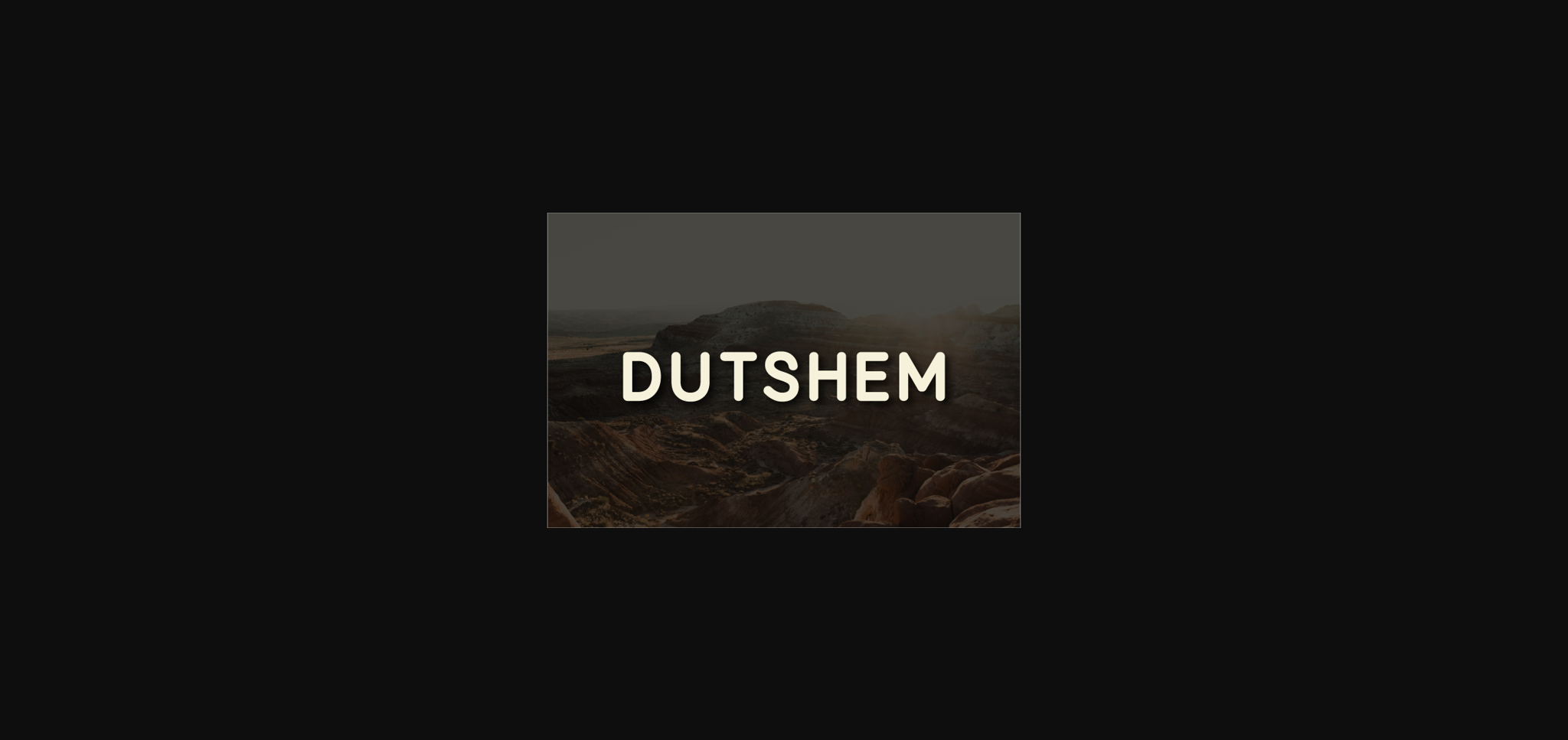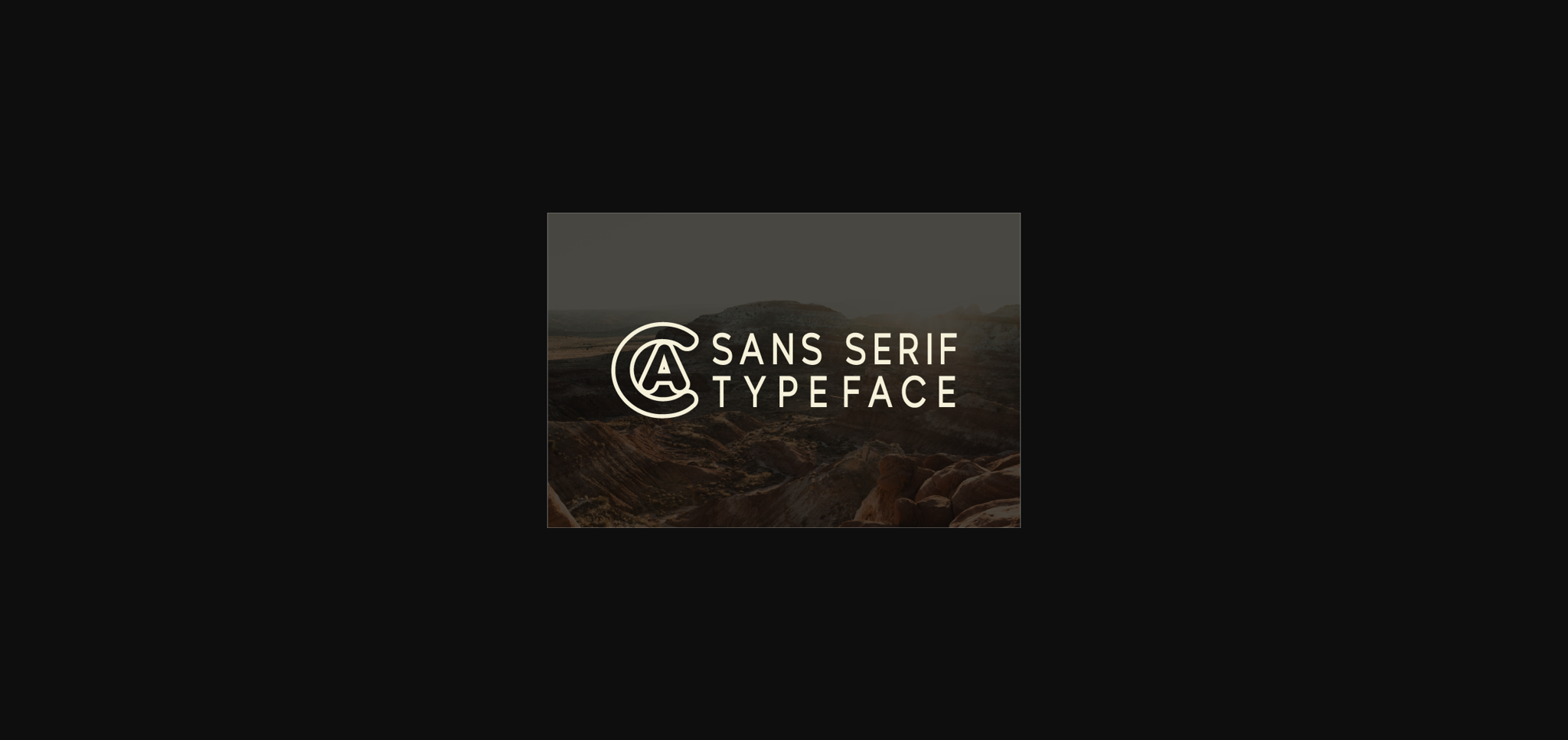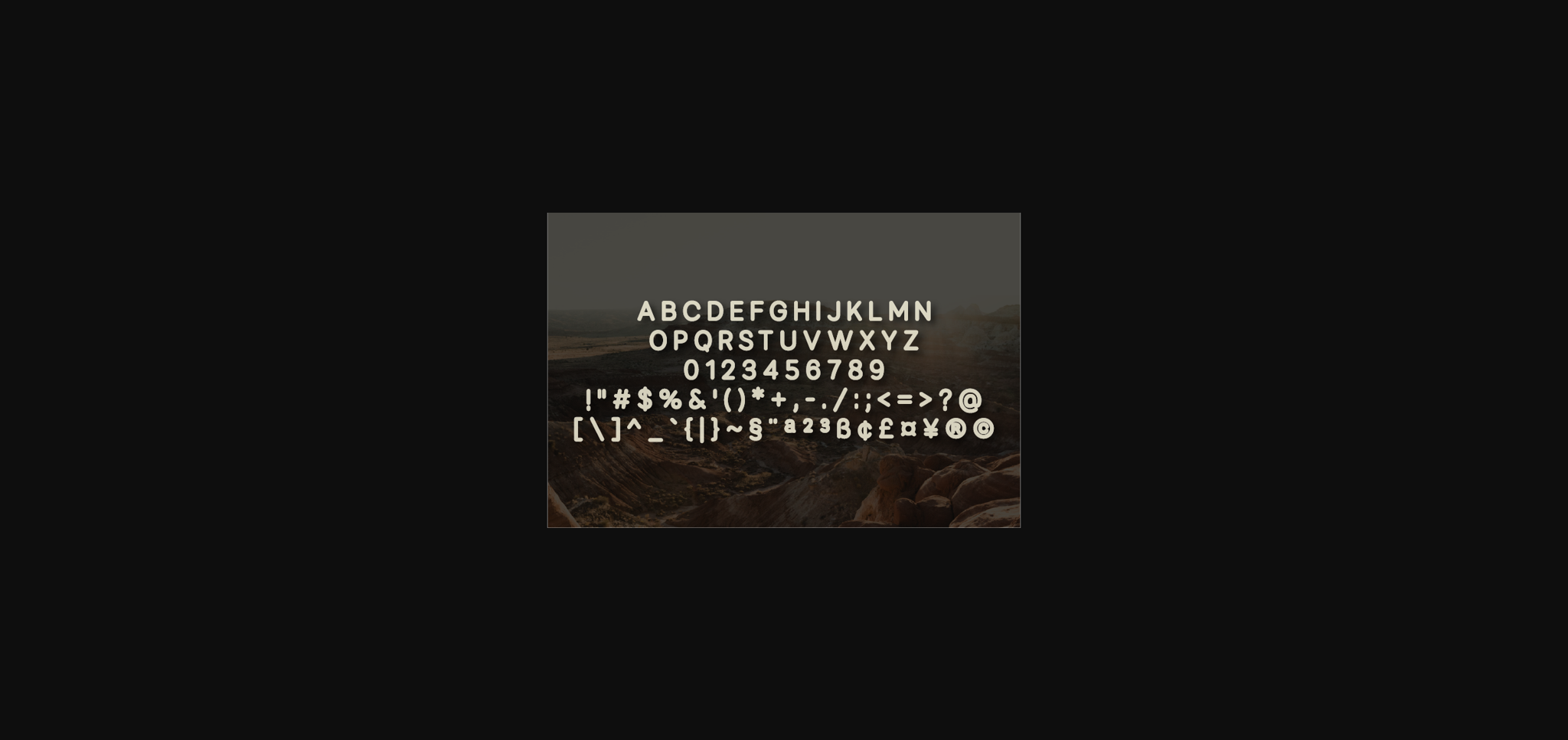
HomeSans Serif FontsDutshem Font Sans Serif Fonts Dutshem Font FacebookXPinterestWhatsApp 1 of 5 ... Dutshem Font Poster 2... Dutshem Font Poster 3... Dutshem Font Poster 4... Dutshem Font Poster 5... About Dutshem Font Dutshem is a plain and neat sans serif font. It can easily be matched to an incredibly large set of projects, so add it to your creative ideas and notice how it makes them stand out! DOWNLOAD NOW People also explored Long Island Font Windy Font Sattamy Signature Font Magoat Font Sand Beach Font Neon Green Gildan 5000 T-Shirt Mockup Nightclub BTN Melanie Abigail Madam Ghea Font 522 0 TagsDutshemDutshem Font Previous articleOatfild FontNext articleRother Font LEAVE A REPLY Cancel reply Comment: Please enter your comment! Name:* Please enter your name here Email:* You have entered an incorrect email address! Please enter your email address here Website: Save my name, email, and website in this browser for the next time I comment. Personal Use Free No Virus Personal Use Free Read more about this font Catandra Script Personal Use Free Read more about this font Sunshine Tropical Font Personal Use Free Read more about this font Hysteria Santa Personal Use Free Read more about this font BLOG Fonts That Capture the Spirit of New York City New York City is more than just a place—it’s an experience, a rhythm, a visual language... Best Fonts for YouTube Videos: Make Your Thumbnails Stand Out Exploring Font Trends Free vs Paid Fonts: Why Investing in Premium Fonts Is Worth It